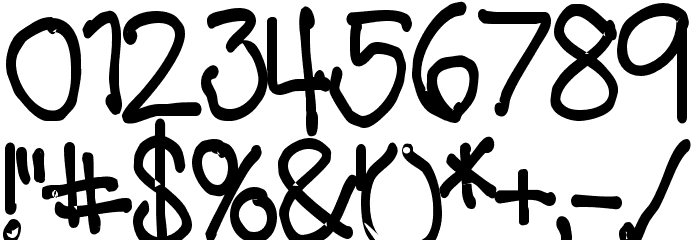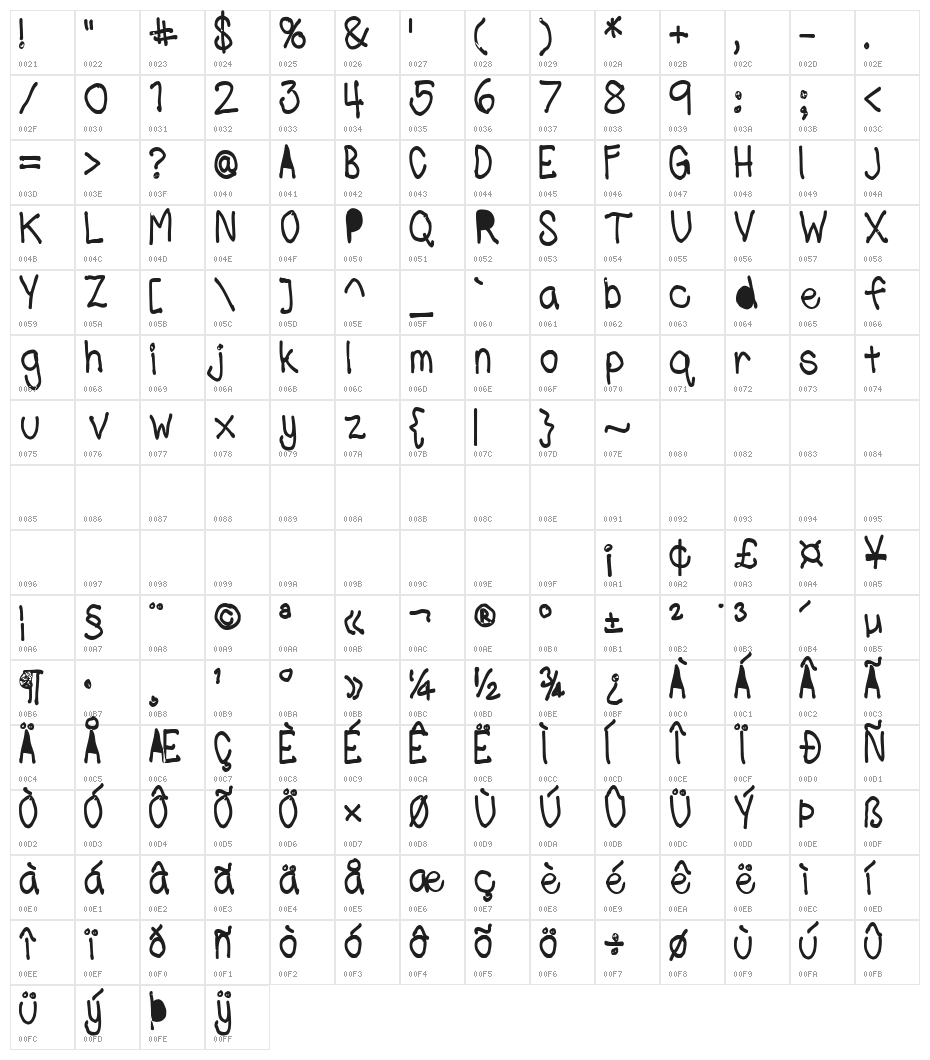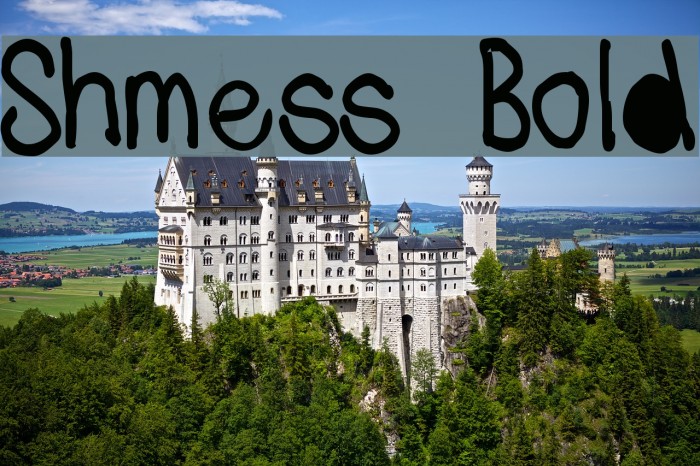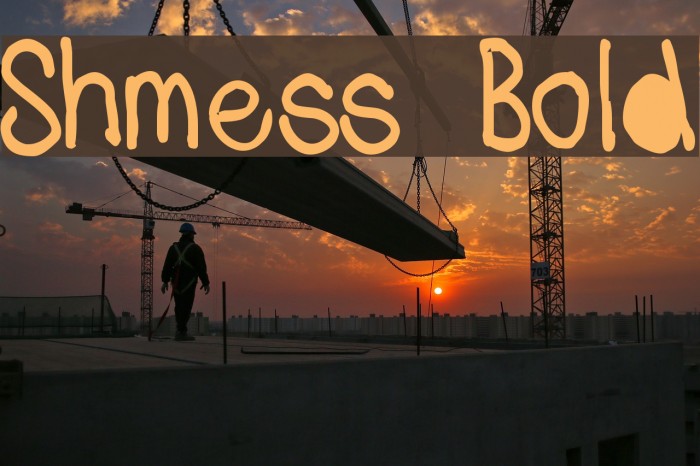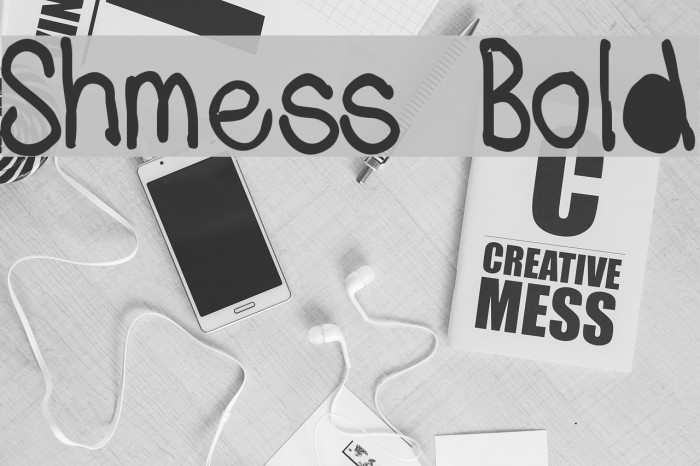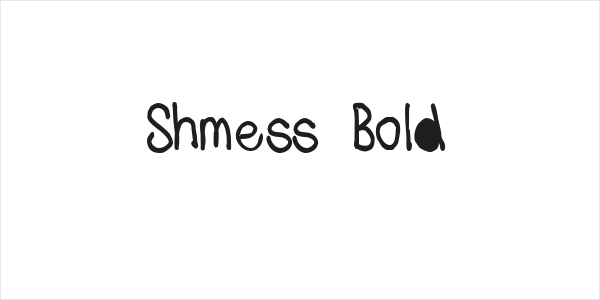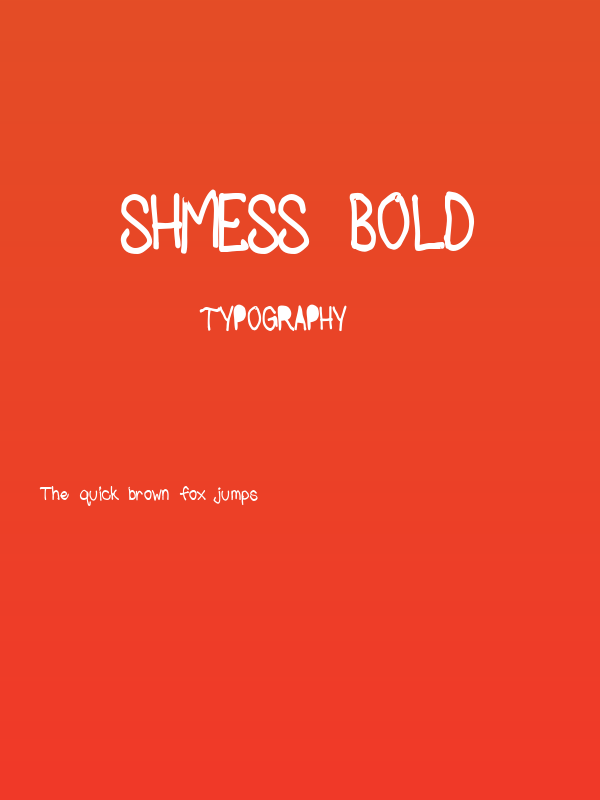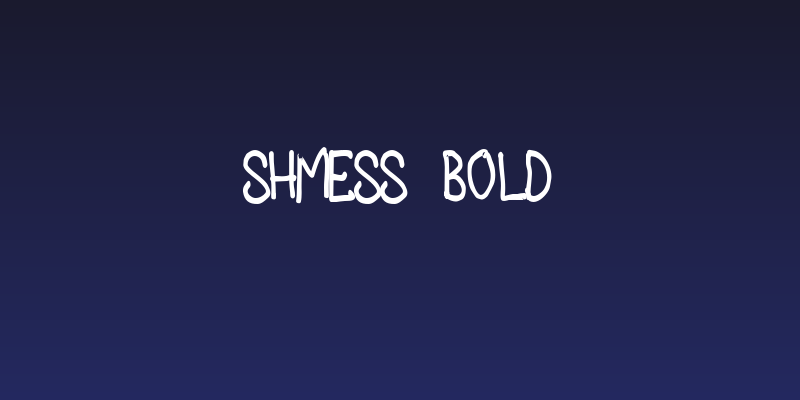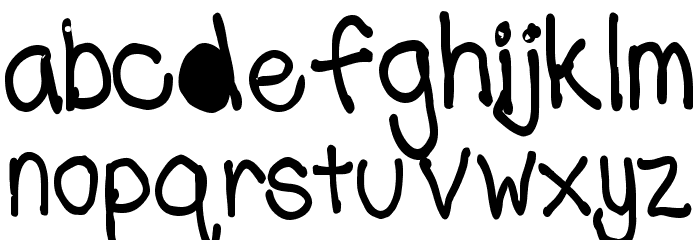
Shmess Bold Font
Shmess Bold Description
This font features a playful and bold handwritten style, characterized by its thick strokes and informal appearance. The letters have a casual, almost childlike quality, with uneven lines and a slightly irregular baseline that adds to its charm. The uppercase and lowercase letters maintain a consistent style, with rounded edges and a friendly demeanor. Numbers and special characters are equally bold and maintain the whimsical aesthetic. This font is ideal for projects that require a fun and approachable look, such as children's books, playful branding, or casual invitations.
| Proposed Projects | Ideal for children's books, playful branding, casual invitations, and creative posters. |